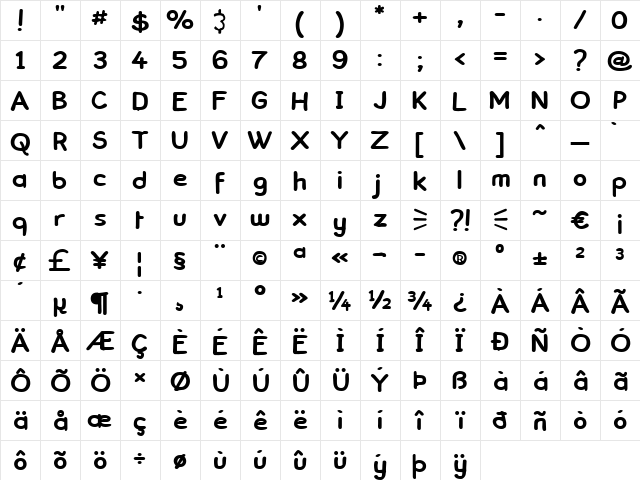
ComickBook Regular
Design Context for ComickBook Typeface
ComickBook trades formality for fun, with bouncy, characterful letterforms that bring warmth and energy to any project.
Font Pairing: Pairs well with a rounded or humanist sans for body copy, maintaining the friendly tone without relying on ComickBook to carry extended reading.
Pro Tip: Use ComickBook at larger display sizes where its expressive character can land. Pair with a clean, simple sans for body copy to maintain readability.